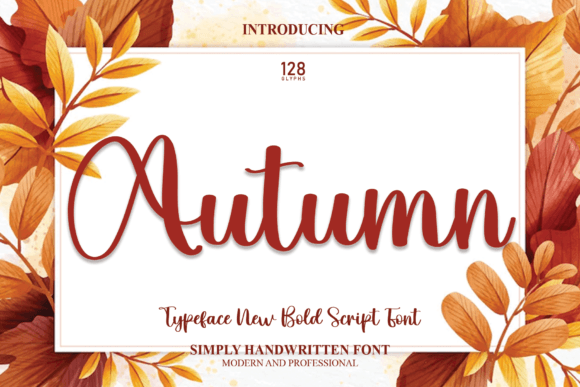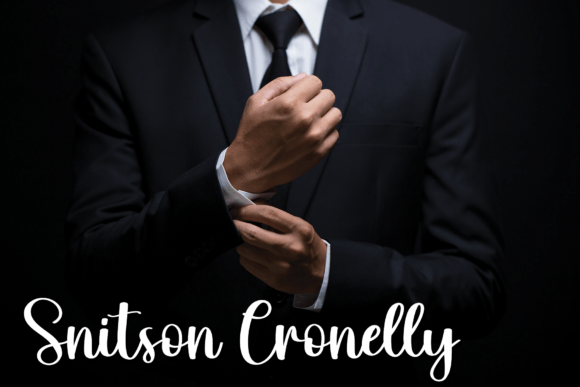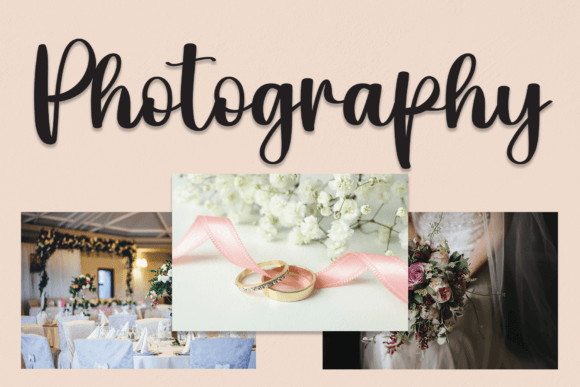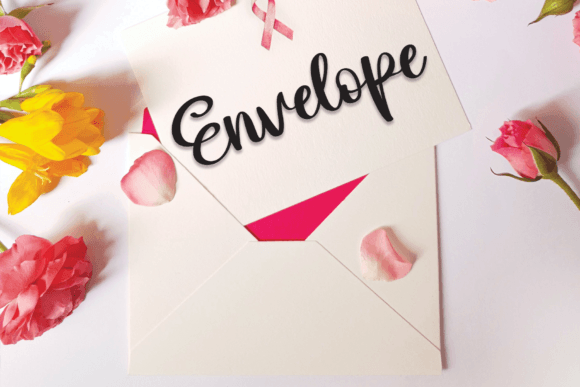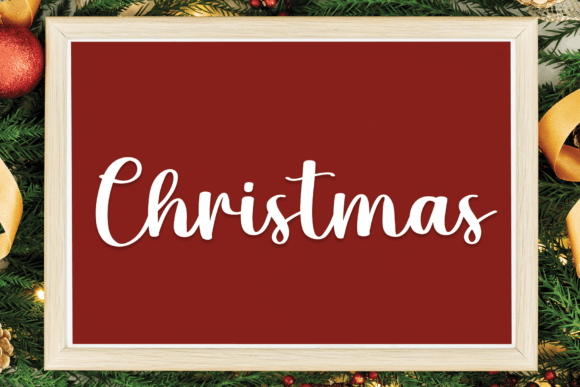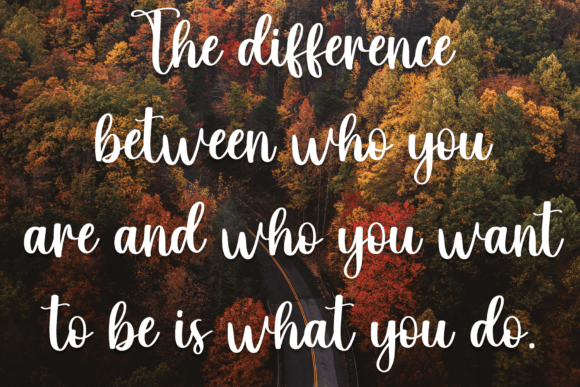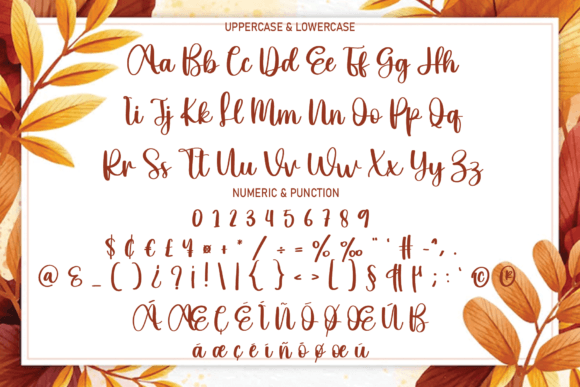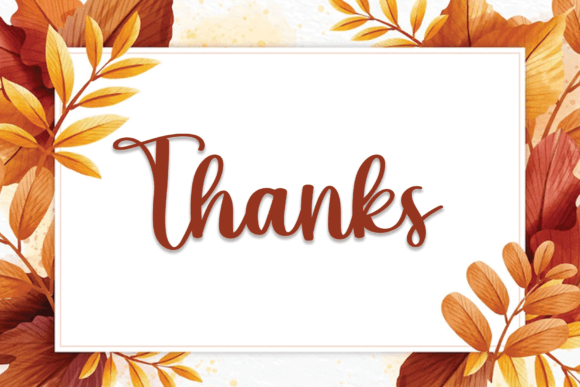
Autumn Font
About Autumn Font
AutumnFont is a flowing handwritten script that blends elegance with timeless style. With smooth curves and graceful strokes, this typeface adds sophistication and personality to both personal and professional projects. Because of its versatile design, Autumn Font is perfect for invitations, greeting cards, logos, posters, and branding.
A Handwritten Typeface with Timeless Elegance
Handwritten fonts naturally add charm and individuality, and AutumnFont builds on this with polished strokes and a refined rhythm. Its flowing structure ensures readability while maintaining an artistic appearance. Moreover, its graceful design adapts seamlessly to both modern and traditional layouts. As a result, this handwritten script is a dependable option for designers seeking originality and beauty.
For stationery and event projects, AutumnFont is an excellent choice. For example, it can elevate a wedding invitation into a keepsake filled with style. In addition, it works beautifully for thank-you cards, birthday greetings, and seasonal notes. Because of its elegant strokes, every design feels heartfelt, stylish, and memorable.
A Script Typeface for Logos and Branding
Brands and professionals aiming for sophistication can rely on Autumn Font. It adds personality and elegance to logos, packaging, and product labels. Furthermore, on social media, it enhances posts, stories, and promotional graphics with charm. When paired with minimalist sans serif fonts, Autumn Font achieves harmony between professionalism and creativity.
Another strength of Autumn Font is its adaptability across mediums. In print, it looks stunning on posters, brochures, magazines, and merchandise. Digitally, it elevates websites, blogs, and presentations with authenticity. Since it scales beautifully in both small and large sizes, this handwritten script is practical for diverse creative applications.